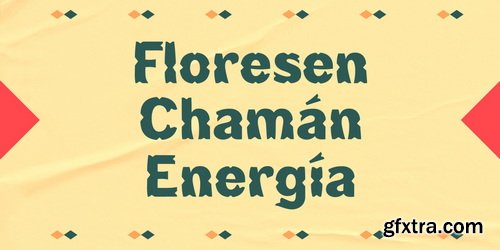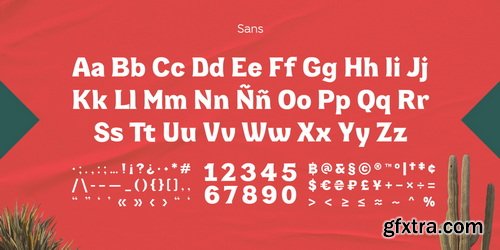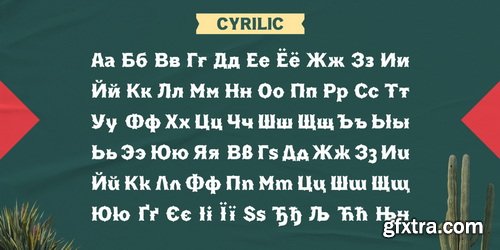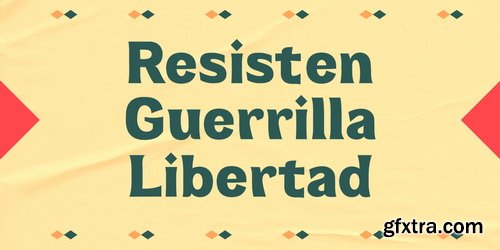
When I traveled to Amsterdam back in 2022, I was fascinated by the Tuscan typefaces that adorned coffee shop signs, drugstores, and restaurants. ‘Puyita,' which is Spanish for ‘little spike,' is my first interpretation of Tuscan letterforms. Featuring three distinct styles, this display font intersects modern and rustic expression, intended for branding and typographic compositions. In addition to the main Tuscan style, the secondary decorative style, ‘Cortada,' inverts the spikes and contours inward, creating a concave space that evokes a whole new personality. Finally, a Sans version omits all decoration in favor of a simple, yet relaxed and legible style. In the future, Puyita might gain more weight within the family.